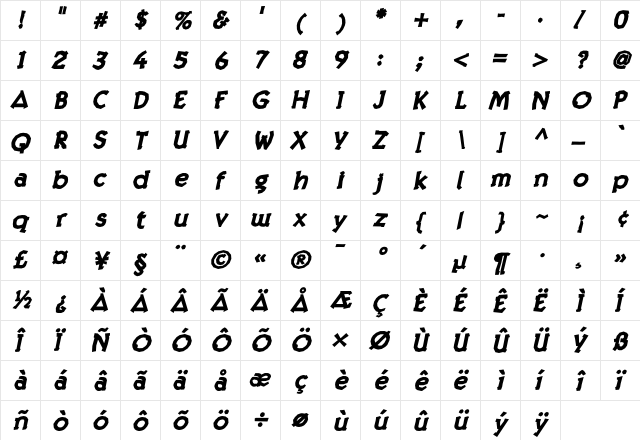
Twig Black Oblique Regular
Design Context for Twig Black Oblique Typeface
Twig Black Oblique offers clean, dependable letterforms without strong stylistic allegiance, making it a practical choice for designers who need flexibility. Its italic angle brings a sense of urgency and motion to the letterforms.
Pro Tip: Try Twig Black Oblique for annotation and caption copy alongside an upright companion — the contrast in angle creates a dynamic but ordered typographic system.